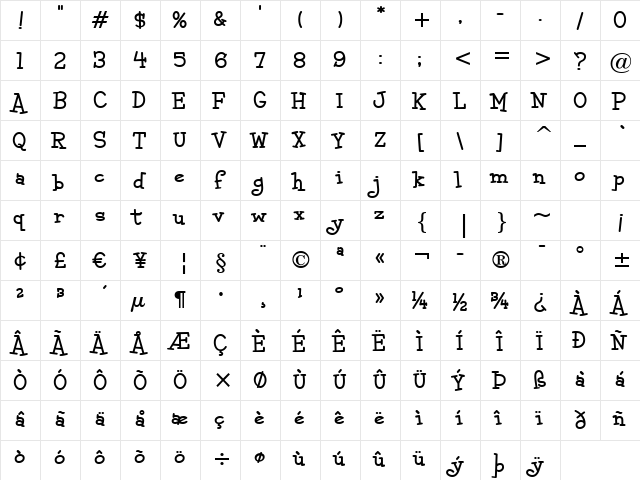
Malihini Tahitian BTN Bold
Design Context for Malihini Tahitian BTN Typeface
Malihini Tahitian BTN offers clean, dependable letterforms without strong stylistic allegiance, making it a practical choice for designers who need flexibility. Its bold stroke weight gives it real presence on the page.